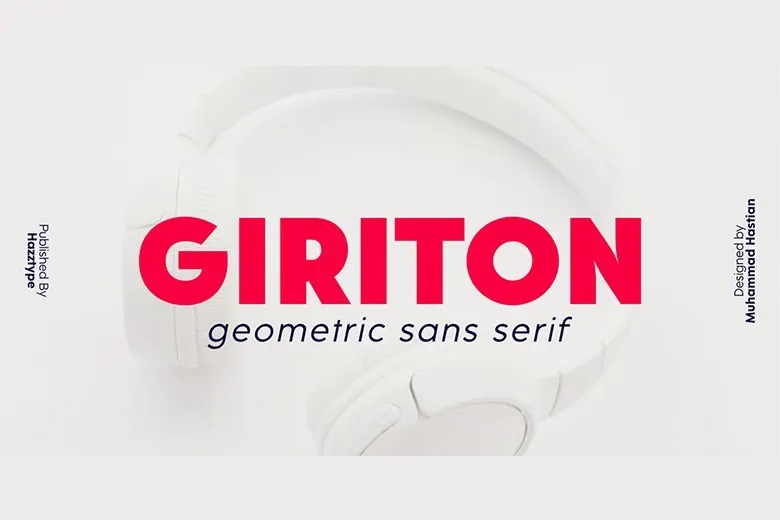
Giriton Font
Giritron is a geometric, sans serif font that is both elegant and contemporary at the same time. Giritron does not disappoint when it comes to gauging the balance between the readability and aesthetic effect due to its angular, highlighted distinctness, and minimalist style.
Giritron is an ideal solution when it comes to modern branding, editorial layouts, websites, or any other design-related activity in which one would like to achieve a sophisticated, modern appearance.
Its geometric sans-serif design guarantees its classic look and feel and its detail makes it stand out as a unique and attractive typeface.
Giriton Sans Serif Font